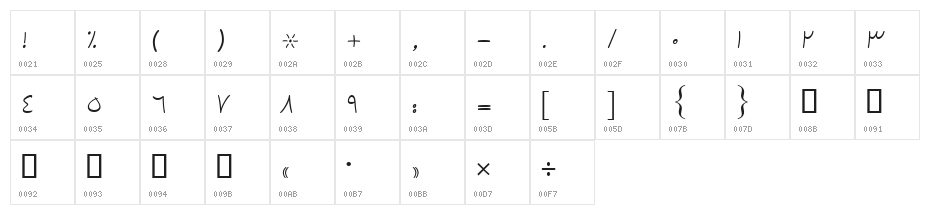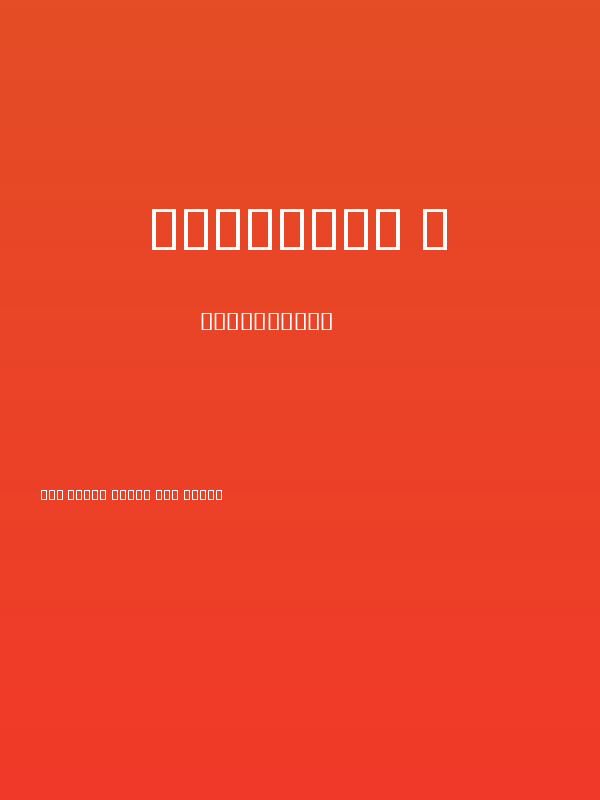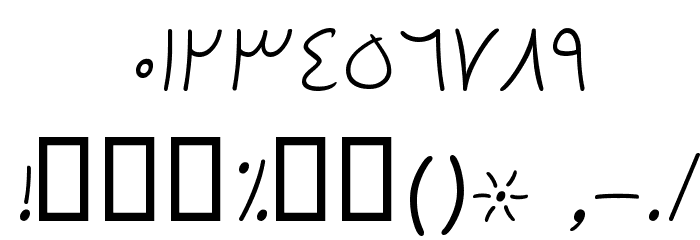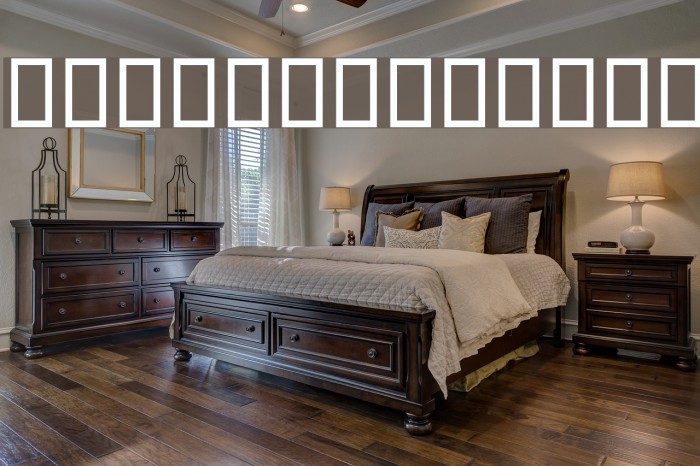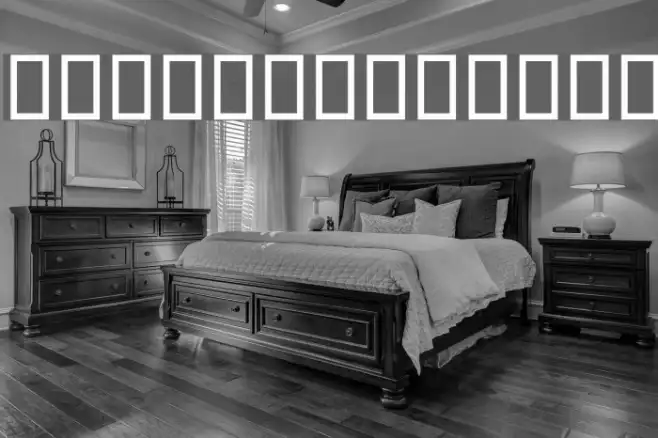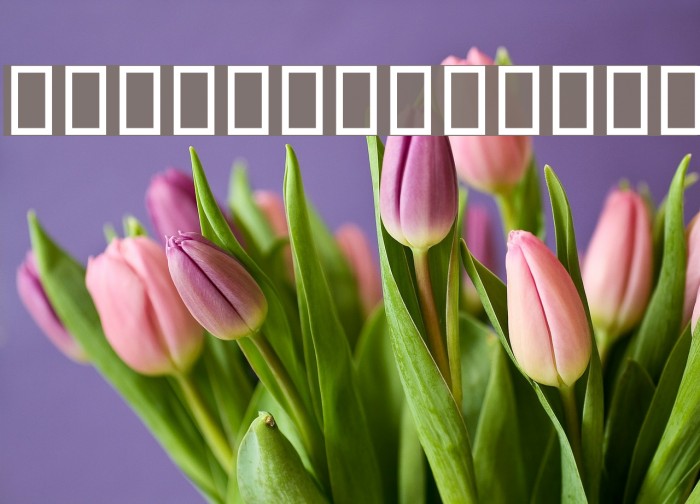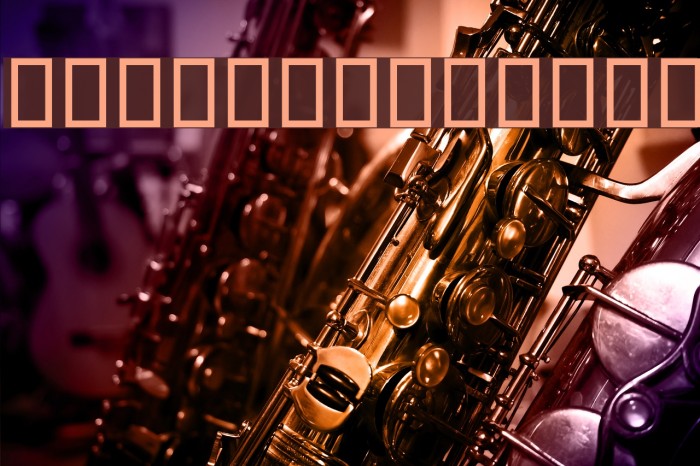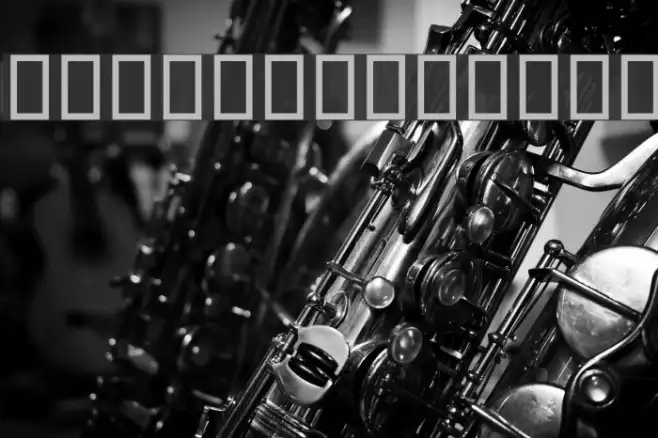
Destkhat I Font
Destkhat I Description
The font features a distinctive and artistic style, characterized by its flowing, cursive-like strokes that give it a handwritten appearance. The characters are elegantly crafted with a consistent stroke width, providing a harmonious and balanced look. The numerals and special characters maintain the same artistic flair, ensuring a cohesive design throughout. This font is particularly suitable for creative projects where a personal touch is desired.
| Proposed Projects | Ideal for wedding invitations, greeting cards, personal branding, and artistic posters. |